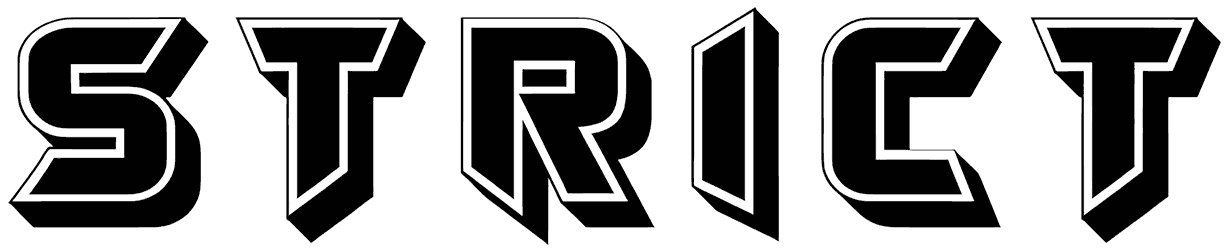
Strict Font
Welcome to Strict, a prominent all-caps 3D font that comes with an eye-grabbing style and carries a sense of uniqueness, approachability, or captivating. This retro font would level up the efficiency and quality of your…